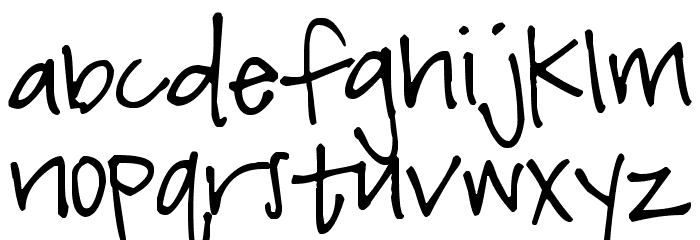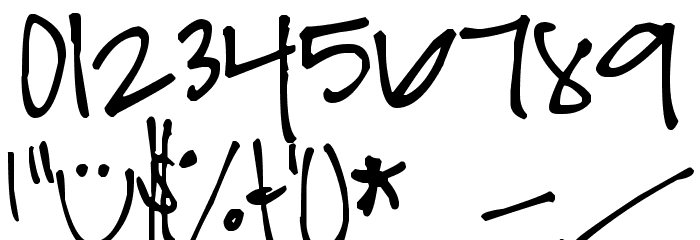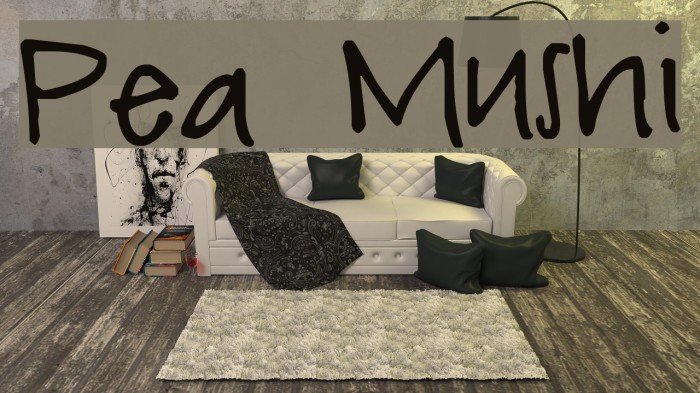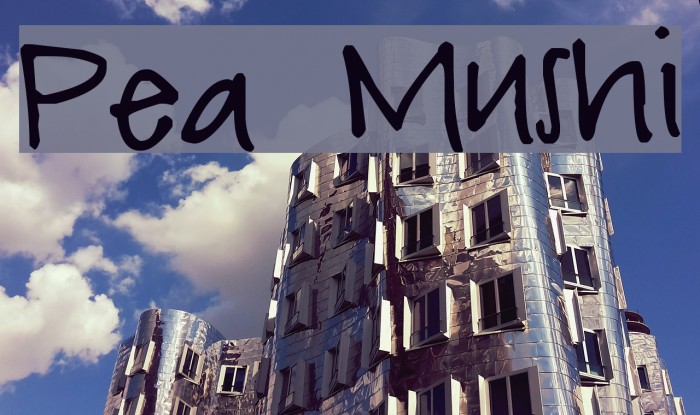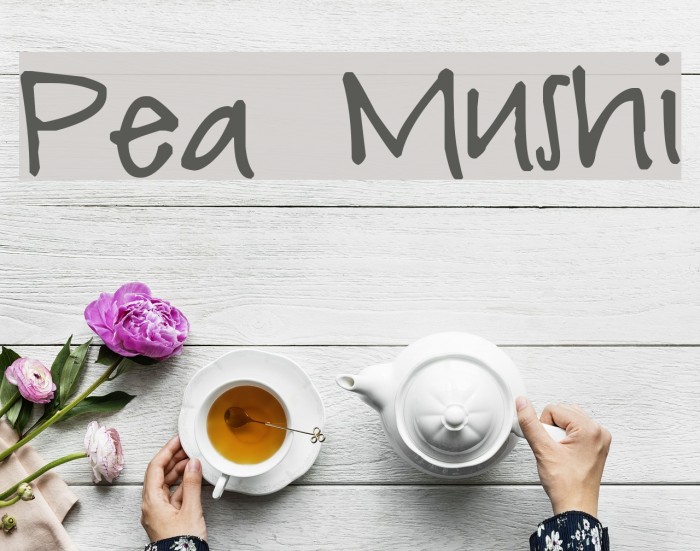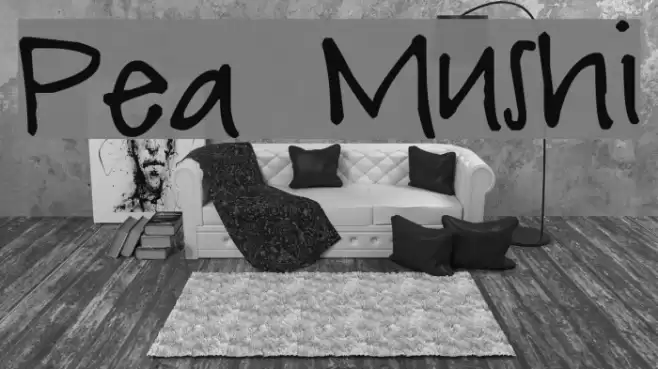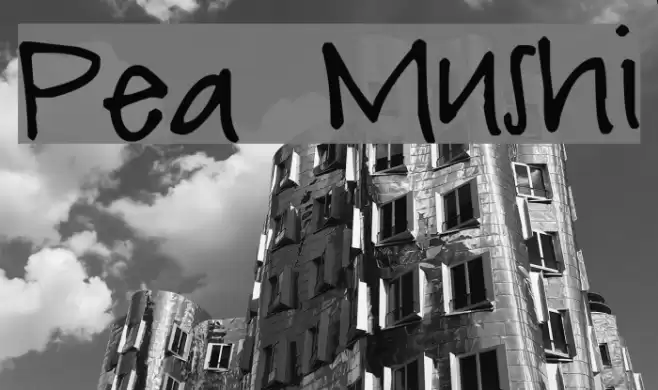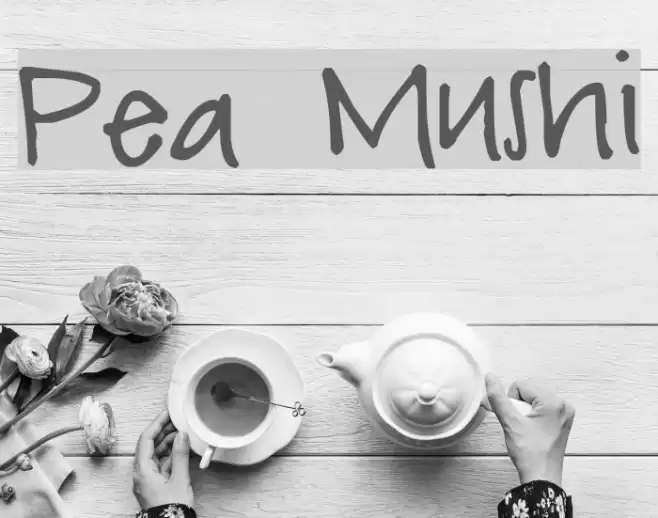
Pea Mushi
This font features a playful and casual handwritten style, characterized by its uneven strokes and organic flow. The letters are slightly slanted, giving it a dynamic and lively appearance. The uppercase and lowercase letters are distinct yet harmoniously blend together, maintaining a consistent style throughout. Numbers and special characters are crafted with the same whimsical touch, making them easily recognizable while retaining the font's unique personality. The overall look is informal and approachable, ideal for projects that require a personal or creative touch.
A playful, casual handwritten font with a lively and dynamic style.
- Proposed Projects: Perfect for greeting cards, personal blogs, children's books, and creative branding projects.
- Overall Style: Casual, Playful
- Use Case: Logos, Headlines, Informal Texts